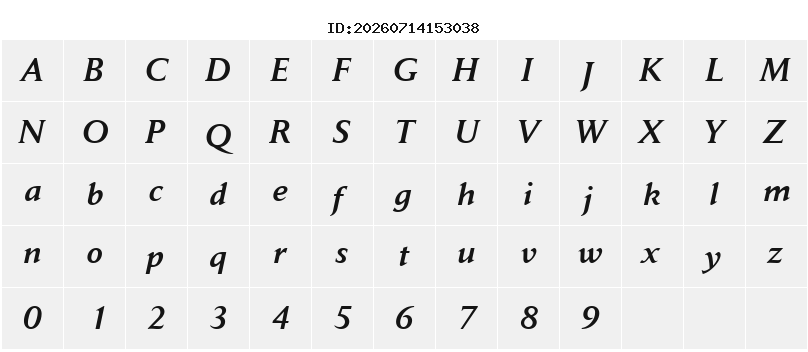
Jaeger Daily News Preview
• Font Name: Jaeger Daily News
• Font Style: ItalicBold
• Full Font Name: Jaeger Daily News Medium Italic
• PostScript Name: DailyNews-MediumItalic
About Jaeger Daily News.ttf
Jaeger Daily News.ttf is a modern, elegant sans-serif font designed for ultimate readability and visual harmony. Perfect for branding, headlines, web design, and print materials.